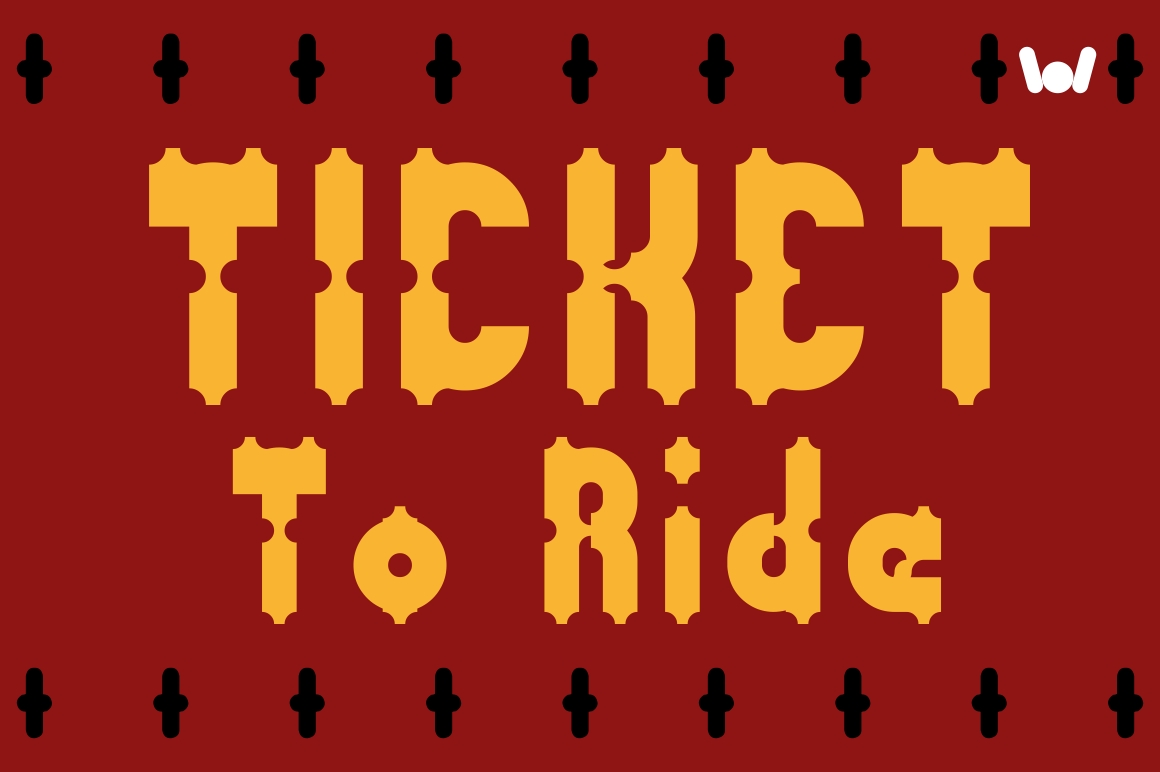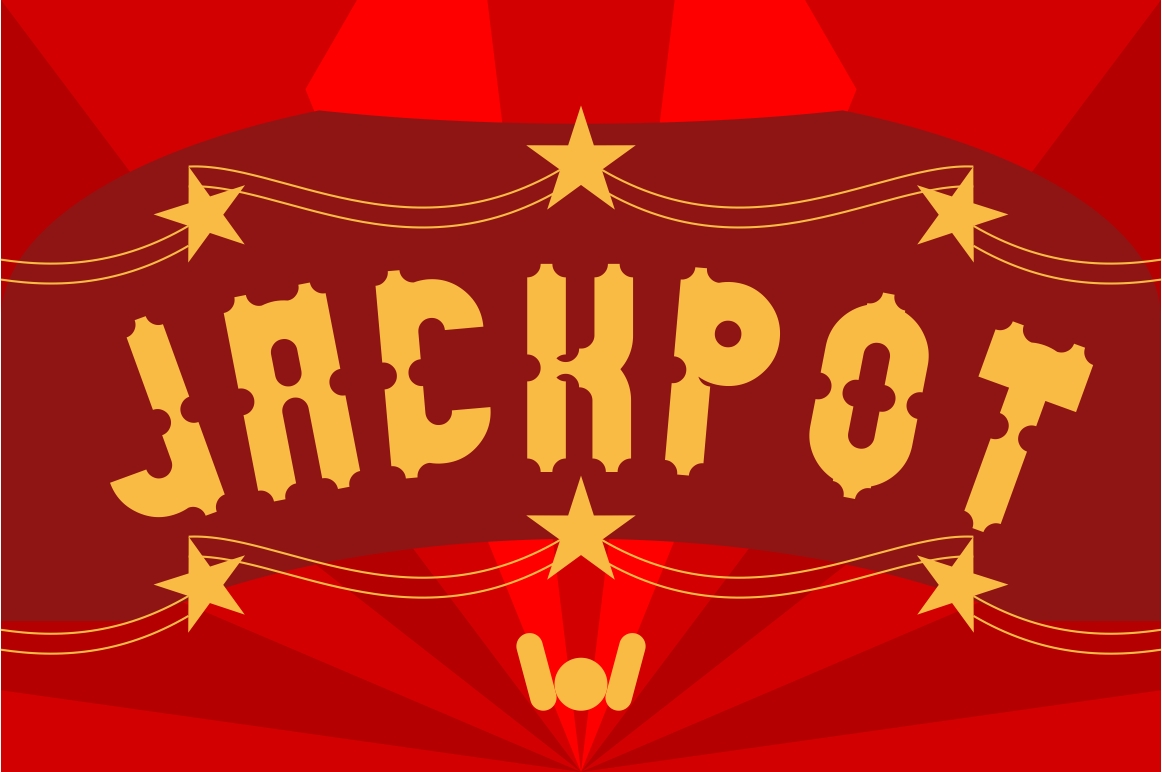
Discover the Charm of Antique Retro Font: Elevate Your Designs with a Vintage Twist
Are you a designer or crafter looking to add a touch of nostalgia to your projects? Look no further than the Antique Retro Font! This fun and decorative font is perfect for creating eye-catching designs that scream retro charm. Inspired by the classic look of carnival tickets, Antique Retro Font is a gorgeous and playful addition to any design project.
The Story Behind Antique Retro Font
Antique Retro Font is more than just a font – it’s a statement piece. Modeled after the iconic style of carnival tickets, this font embodies the carefree spirit of the past. Its unique design is meant to evoke feelings of nostalgia and playfulness, making it perfect for projects that require a dash of whimsy. Whether you’re working on a vintage-themed poster, a craft project, or a digital design, Antique Retro Font is sure to bring a smile to your face.
Key Features of Antique Retro Font
- Unique and Playful Design: Inspired by carnival tickets, Antique Retro Font boasts a distinctive look that’s sure to turn heads.
- Highly Versatile: Perfect for a wide range of design projects, from digital graphics to print materials.
- Fun and Decorative: Adds a touch of nostalgia and playfulness to any design.
Uses for Antique Retro Font
So, what can you create with Antique Retro Font? The possibilities are endless! Here are a few ideas to get you started:
- Vintage Posters and Flyers: Create eye-catching promotional materials for events, sales, or product launches.
- Craft Projects: Add a personal touch to your scrapbooking, card-making, or DIY crafts.
- Digital Graphics: Use Antique Retro Font to create engaging social media graphics, blog headers, or website elements.
- Packaging Design: Give your product packaging a unique and memorable look.
Tips for Using Antique Retro Font
To get the most out of Antique Retro Font, here are a few tips to keep in mind:
- Mix and Match: Combine Antique Retro Font with other fonts to create a unique look.
- Experiment with Colors: Try out different color schemes to find the perfect match for your design.
- Play with Size and Style: Don’t be afraid to get creative with font sizes and styles to add visual interest.